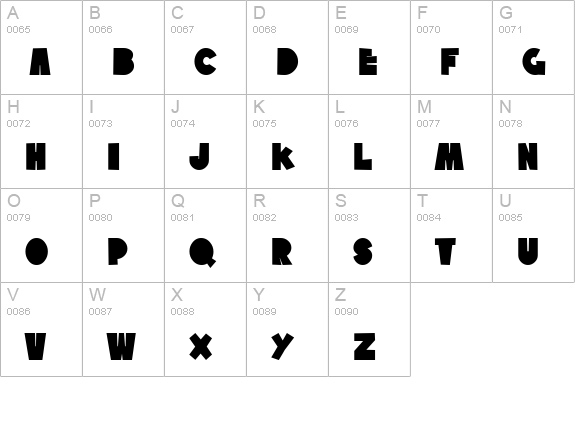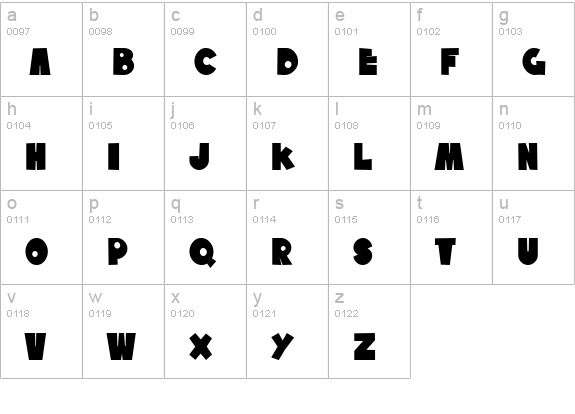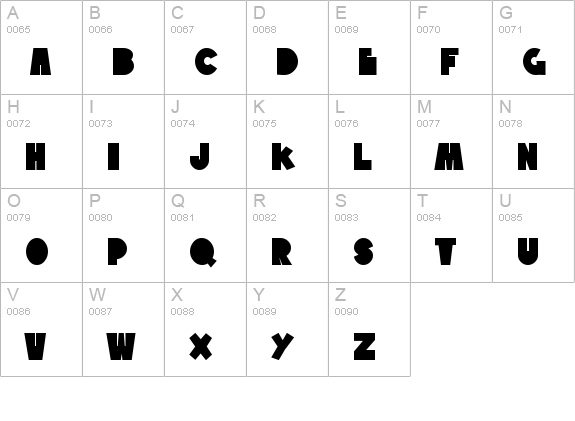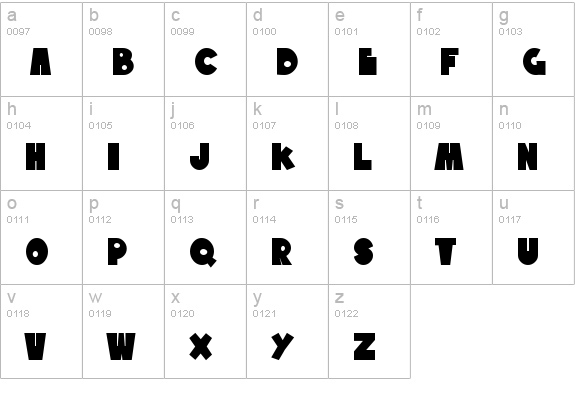
SF Tattle Tales Bold is a strong, high-contrast variant in the SF typeface family \xE2\x80\x94 well suited to headlines, attention-grabbing titles, and strong calls-to-action.
Introducing SF Tattle Tales Bold, a captivating and versatile font that will make your designs stand out from the crowd. With its bold and expressive strokes, this font exudes confidence and adds a touch of modernity to any project. Whether you're creating eye-catching headlines, attention-grabbing logos, or stunning invitations, SF Tattle Tales Bold is the perfect choice to make a bold statement. This font boasts a unique combination of edginess and elegance, making it suitable for a wide range of design purposes. Its bold and assertive letters demand attention, while its clean and refined lines add a touch of sophistication. SF Tattle Tales Bold is the ideal font for those looking to make a lasting impression. One of the best things about SF Tattle Tales Bold is that it's available for free! That's right, you can download this incredible font without spending a penny. Thanks to FontsMarket.com, you can easily access this font and enhance your creative projects with its distinct personality. Whether you're a professional designer or a passionate hobbyist, SF Tattle Tales Bold is freely available to everyone, ensuring that anyone can enjoy its captivating charm. Don't miss out on the opportunity to elevate your designs with SF Tattle Tales Bold. Download it today from FontsMarket.com and experience the power of this bold and versatile font. Let your creativity soar as you explore the endless possibilities that SF Tattle Tales Bold has to offer. With its captivating presence and free availability, this font is a must-have for any design enthusiast.